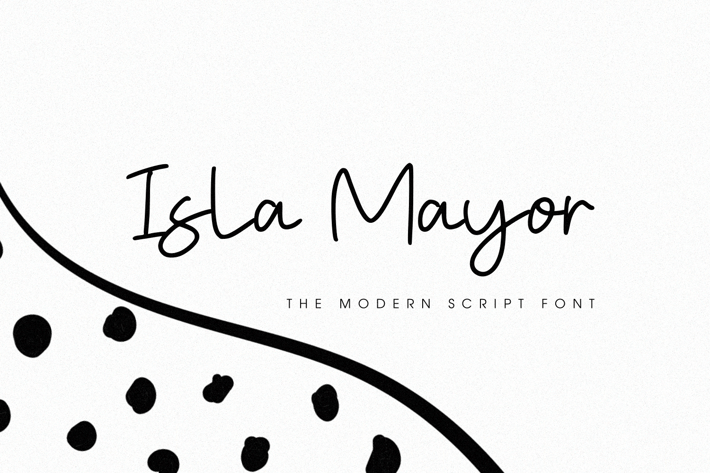
Isla Mayor - The Modern Script Font
Isla Mayor - The Modern Script Font, every single letter has been carefully crafted to make your text looks beautiful. it's perfect for logos, name cards, magazine layouts, invitations, headers, or even large-scale artwork.